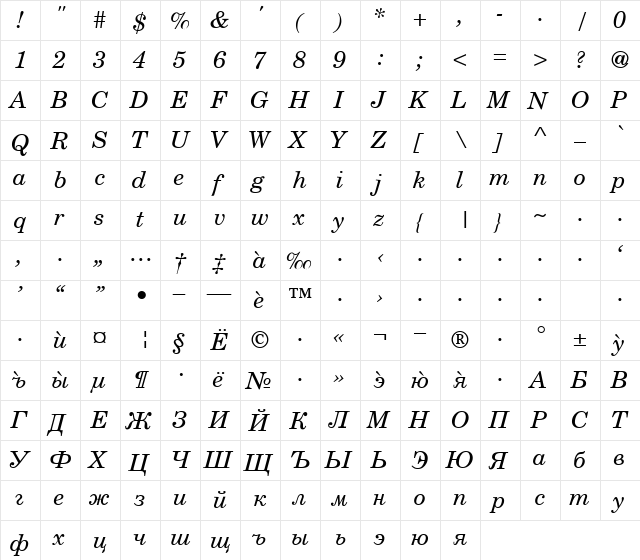
NewSaturionCyr Italic
Design Context for NewSaturionCyr Typeface
NewSaturionCyr offers clean, dependable letterforms without strong stylistic allegiance, making it a practical choice for designers who need flexibility. The dynamic lean of this cut emphasises speed and emphasis in any layout.
Pro Tip: Try NewSaturionCyr for annotation and caption copy alongside an upright companion — the contrast in angle creates a dynamic but ordered typographic system.